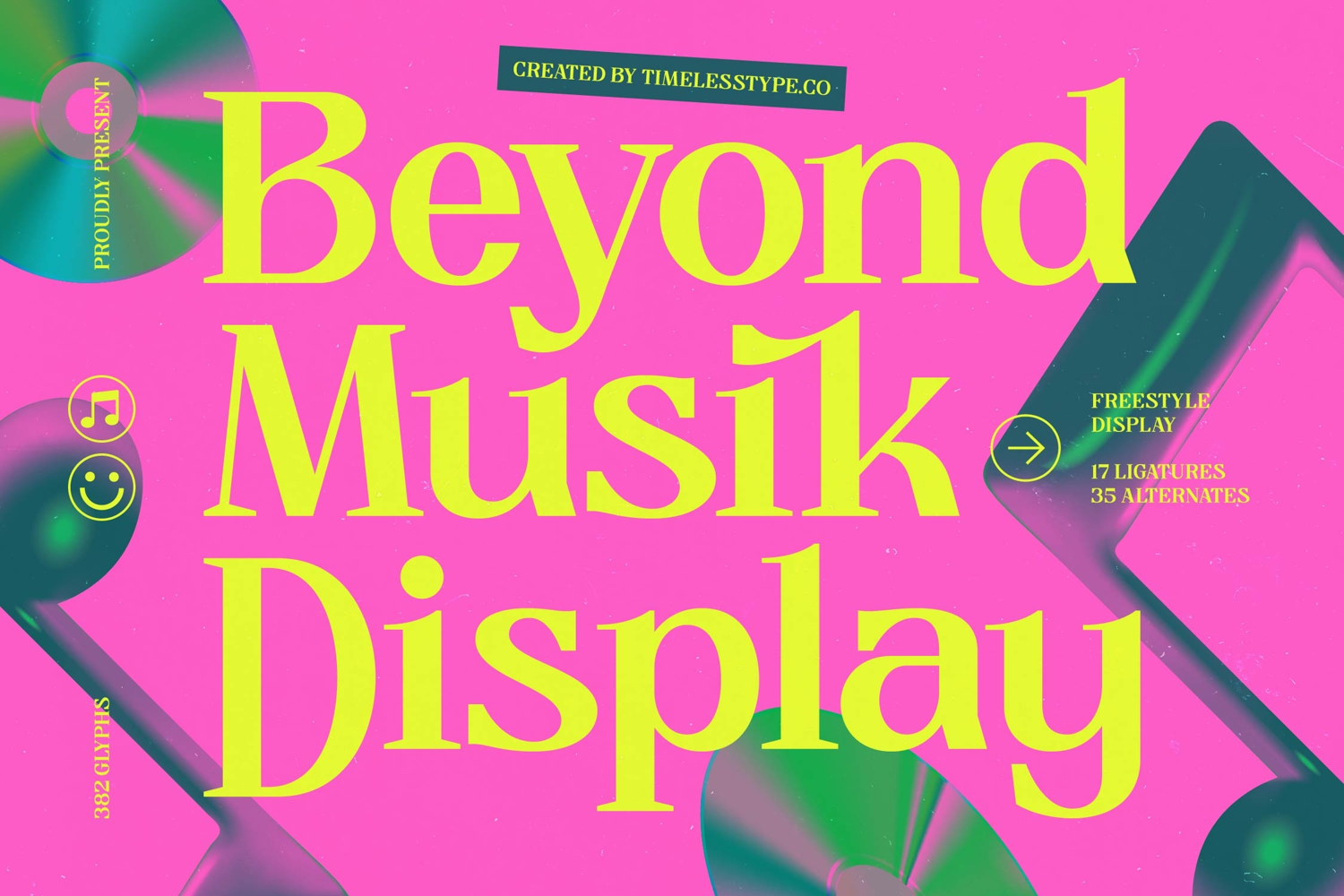
Beyond Musik - Freestyle Display Font
Beyond Musik Italic
Beyond Musik
Beyond Musik - Freestyle Display Font
Unleash unparalleled typographic presence with Beyond Musik - Freestyle Display Font, a truly distinctive typeface engineered for immediate impact. This striking display font masterfully blends classic serif elegance with a contemporary, freestyle edge, delivering a high-contrast aesthetic that commands attention. Its bold forms and refined details ensure your message is not just seen, but felt, making an unforgettable statement in any creative project.
Discover the depth of design artistry embedded within Beyond Musik - Freestyle Display Font. Crafted with meticulous precision, this font boasts an impressive collection of 382 glyphs, including 17 ligatures and 35 alternates. These expansive features offer designers creative freedom to customize and express, ensuring every composition achieves a truly unique and sophisticated typography. Elevate your designs with its nuanced character and dynamic visual flow.
Extend your brand's reach effortlessly across the globe with the exceptional adaptability of Beyond Musik - Freestyle Display Font. With its extensive multilingual support, Beyond Musik - Freestyle Display Font adapts seamlessly across global markets, making it incredibly versatile for international projects. This crucial capability ensures your creative vision resonates universally, breaking down linguistic barriers and connecting with diverse audiences.
Position your brand at the forefront of innovation by utilizing Beyond Musik - Freestyle Display Font for its most impactful applications. It is perfect for luxury branding, editorial design, packaging, album art, poster design, and captivating headlines. This font is not just a typeface; it’s a strategic asset for creating a distinctive identity that truly stands out in a crowded marketplace, reflecting modernity and bold elegance.